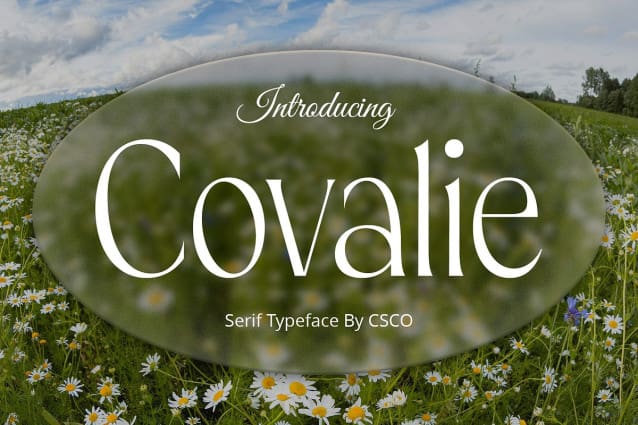
Covalie Font
Covalie Font, a graceful serif typeface inspired by the delicate beauty of flowers. Its moderate contrast and flowing typography capture the essence of floral charm.
Captivating Aesthetics With its subtle curves and refined details, This font exudes an enchanting aesthetic that captivates the eye. Each letter is crafted with precision to convey a sense of natural beauty.
Versatile Usage This font versatility extends across various design applications, from elegant invitations to sophisticated branding. Its timeless appeal makes it suitable for both print and digital projects.
Enhancing Visual Communication Incorporating This font into your designs elevates visual communication by infusing them with a touch of floral elegance. Its harmonious letterforms enhance readability while adding a sense of refinement.
A Blossoming Typeface This font stands as a testament to the enchanting allure of flowers, embodying their beauty in every curve and stroke. With its moderate contrast and graceful letterforms, This font brings a sense of natural elegance to any design project, inviting viewers to appreciate the beauty of nature in typography.